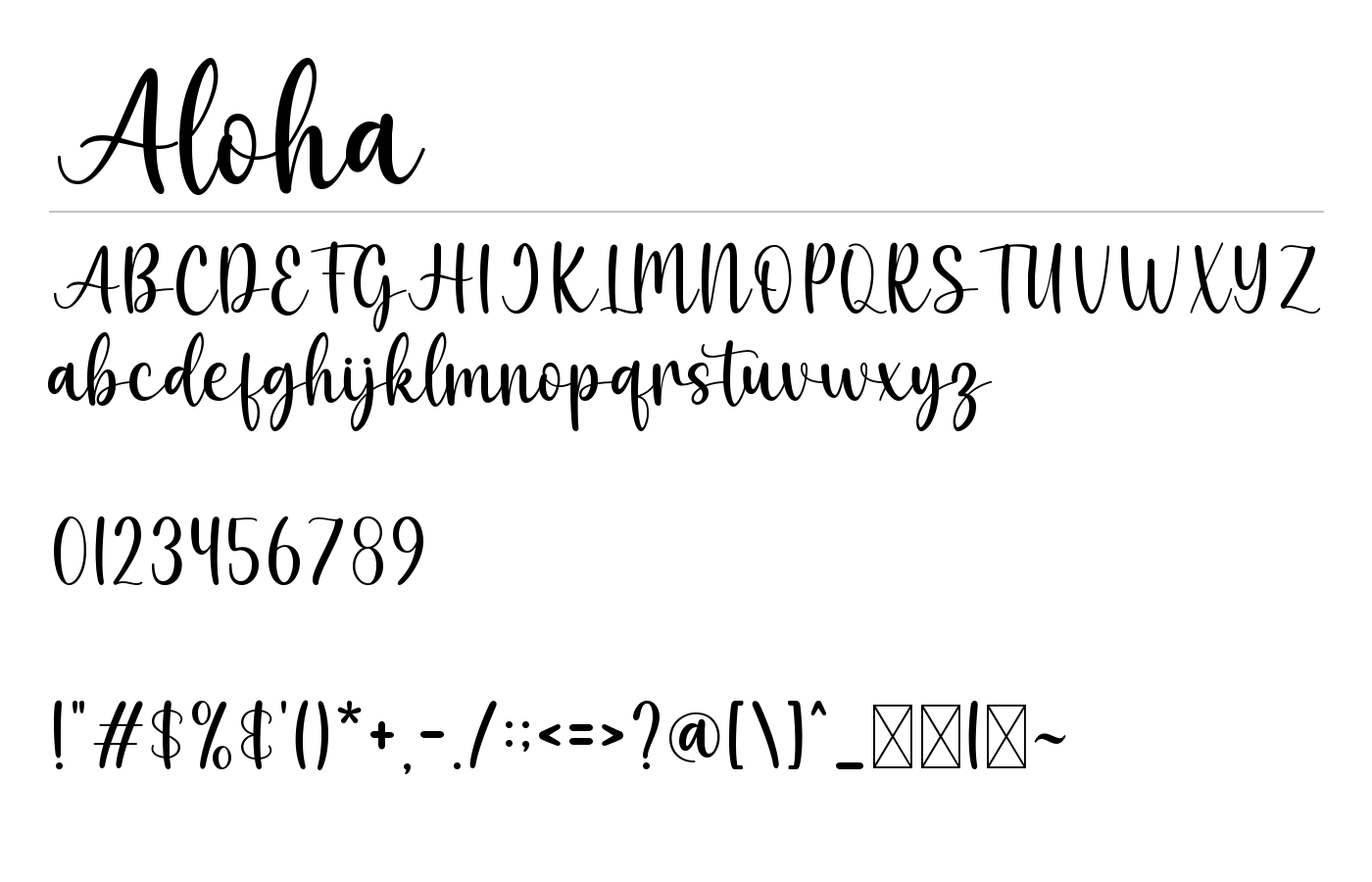
Aloha is a charming script font with a playful and casual feel, featuring smooth, flowing strokes and a moderate contrast in weight that adds warmth and approachability. Its tall x-height and lively letterforms make it ideal for creative branding, invitations, and headlines where a friendly, handcrafted touch is desired. This font works best in designs that seek to convey a fun yet elegant personality, perfect for lifestyle, fashion, or boutique projects.
Aloha Font
About Aloha Font